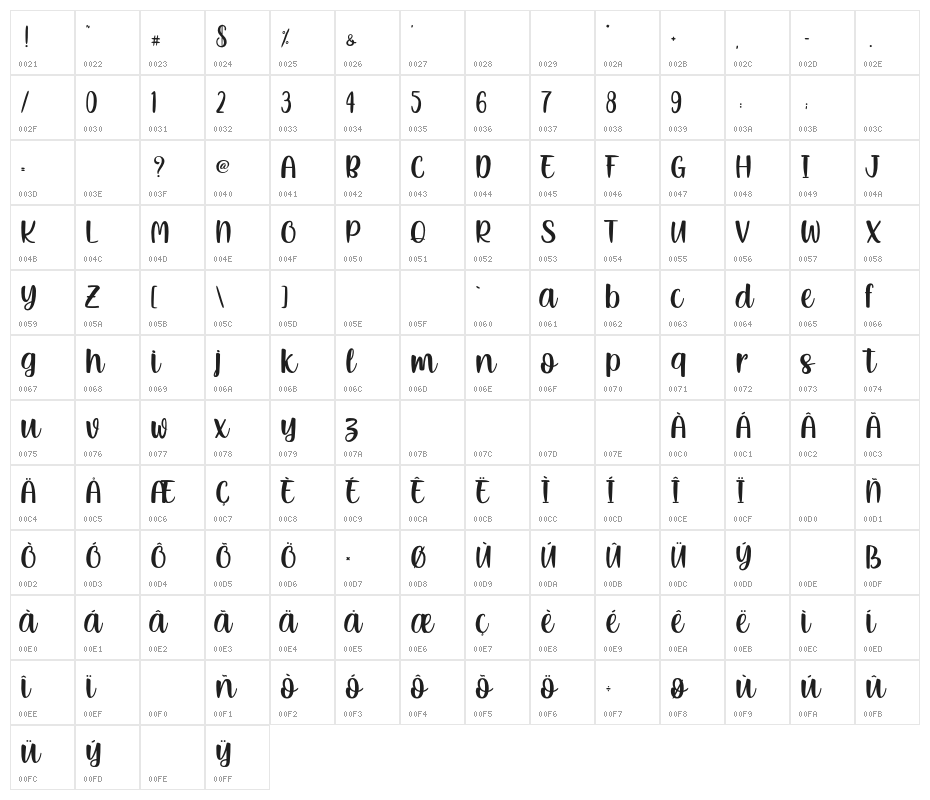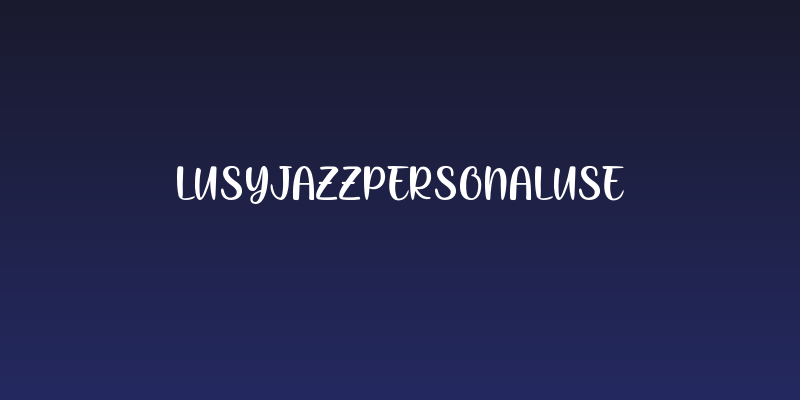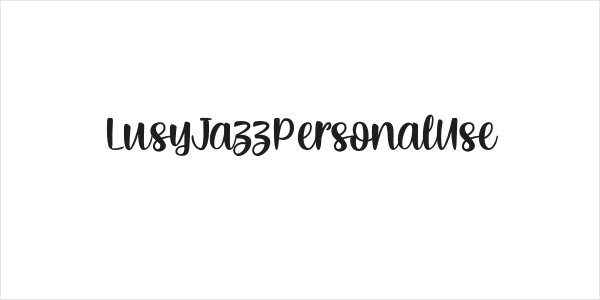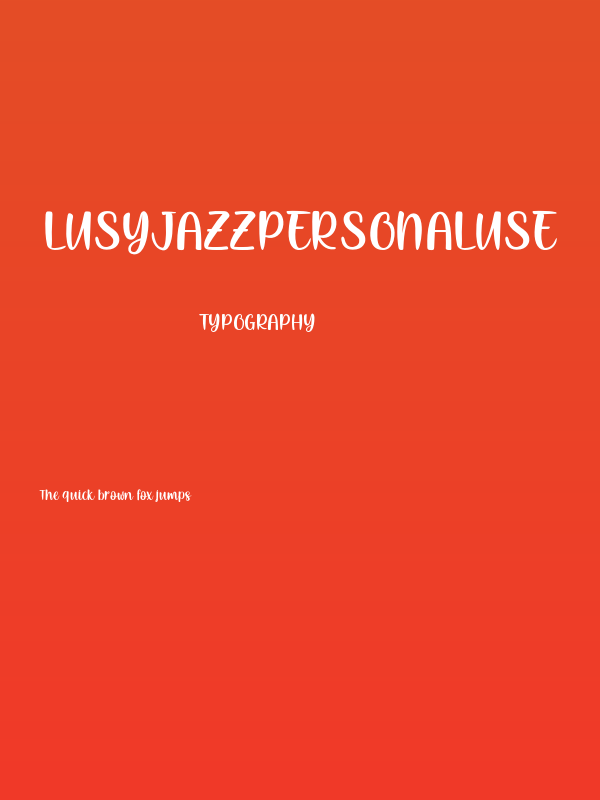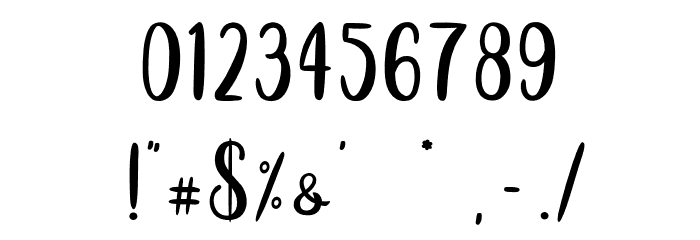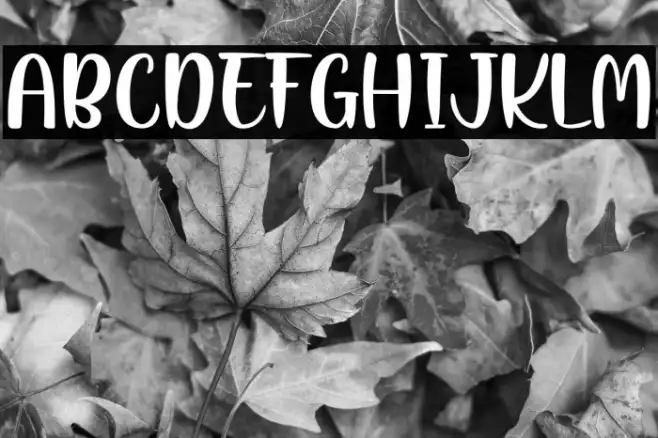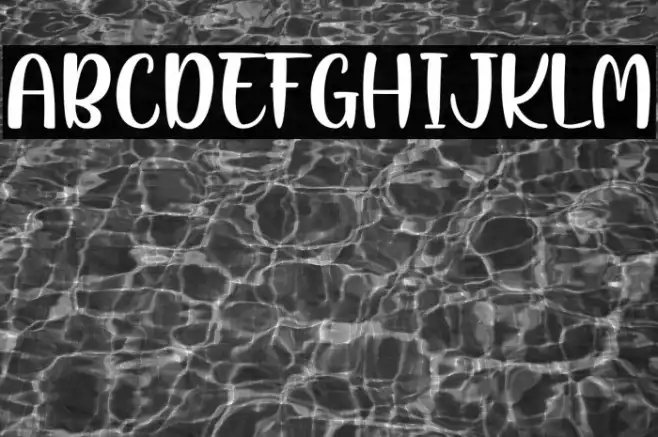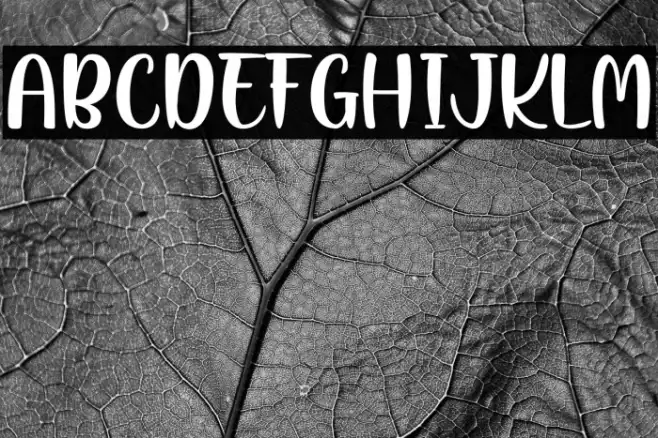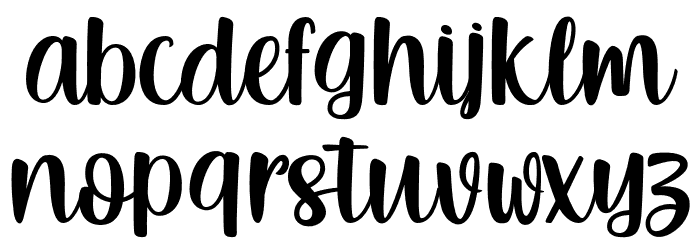
LusyJazzPersonalUse Font
LusyJazzPersonalUse Description
This font features a playful and energetic script style with a handwritten feel. The letters are bold and rounded, giving a sense of warmth and friendliness. The strokes vary in thickness, adding a dynamic and lively character to the text. The uppercase letters are slightly more structured, while the lowercase letters have a more fluid and cursive appearance. The numbers and special characters maintain the same playful aesthetic, making this font versatile for various creative projects. Its unique style is perfect for capturing attention and conveying a sense of fun and creativity.
| Proposed Projects | Ideal for greeting cards, invitations, playful branding, and social media graphics. |